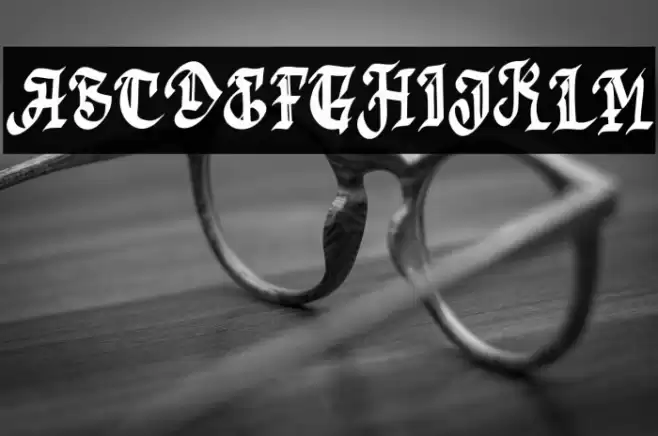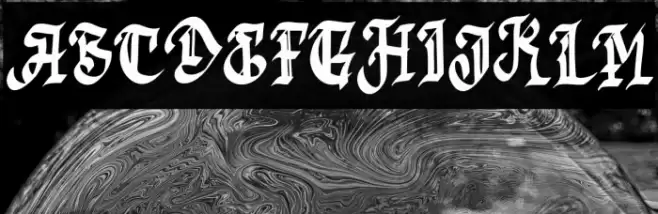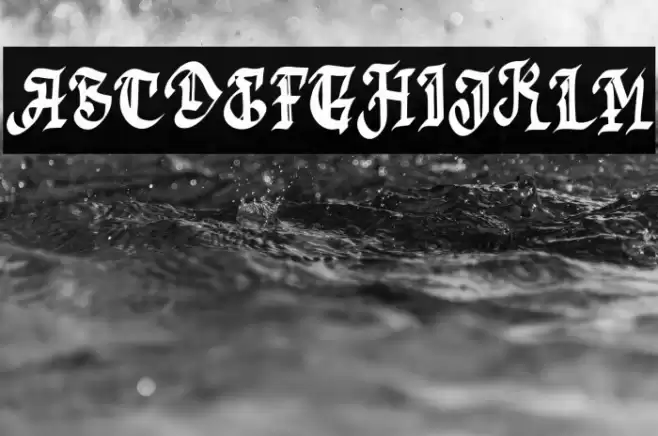
AcudeFREE Font
AcudeFREE Description
This font features a bold and dramatic style, reminiscent of traditional blackletter typography. The characters are intricately designed with sharp angles and elaborate flourishes, giving it a gothic and medieval appearance. The uppercase letters are particularly ornate, with strong vertical strokes and pointed serifs that enhance its historical aesthetic. This font is ideal for creating a sense of grandeur and formality, often used in contexts that require a touch of elegance and tradition.
A bold, gothic-style blackletter font with intricate details from Uncategorized fonts.
- Font: AcudeFREE
- Proposed Projects: Suitable for projects like wedding invitations, certificates, book covers, and branding that require a classic and formal touch.
- Overall Style: Vintage
- Use Case: Logos, Headlines, Decorative purposes